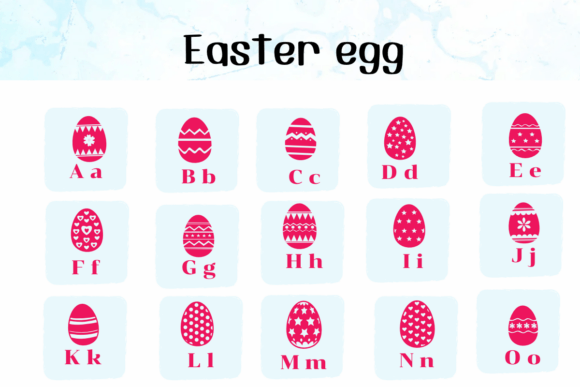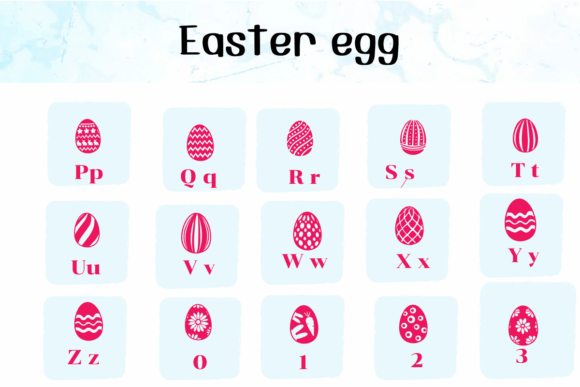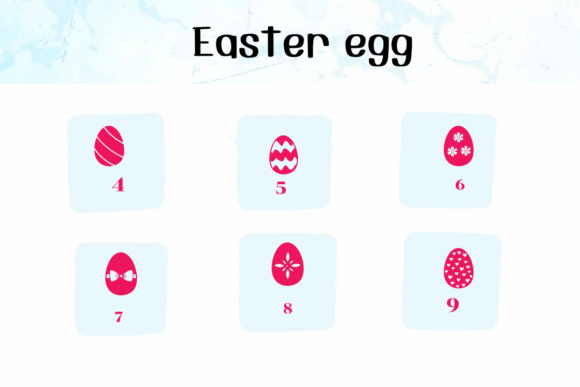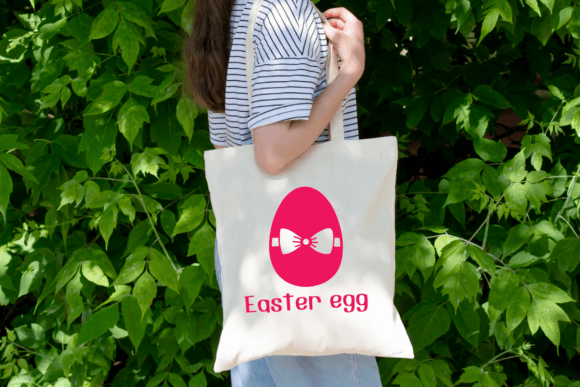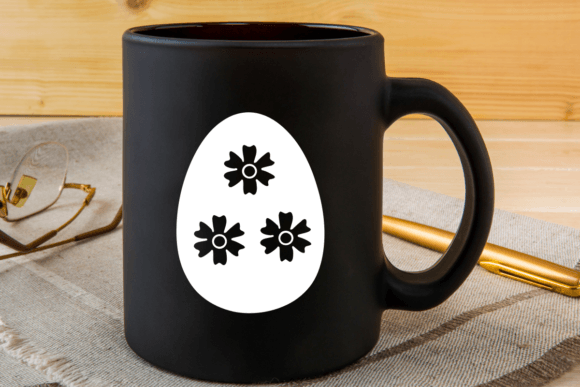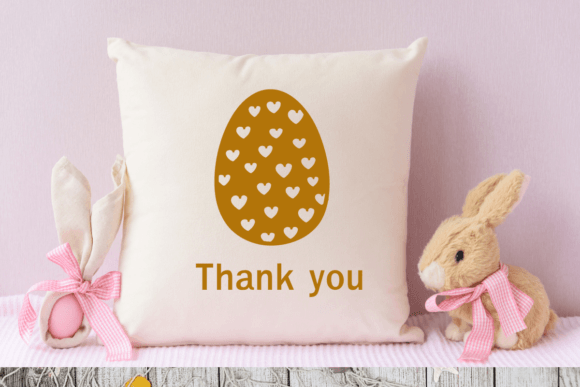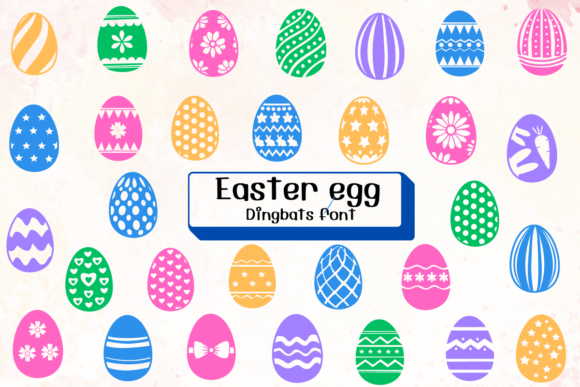
Easter Egg Font: A Fun and Festive Dingbat Font for Easter Crafts
Are you looking for a unique and creative way to add some Easter cheer to your crafts, cards, and decorations? Look no further than the Easter Egg Font, a fun dingbat font that features colorful Easter eggs as its symbols. With this font, each letter or number you type shows a unique, bright, and festive egg design that’s sure to delight.
What is the Easter Egg Font?
The Easter Egg Font is a special type of font known as a dingbat font. Unlike traditional fonts that feature letters and numbers, dingbat fonts feature symbols and graphics. In the case of the Easter Egg Font, each symbol is a colorful and fun Easter egg design. This font is perfect for anyone looking to add a touch of Easter whimsy to their crafts, cards, and decorations.
Here are a few ideas for using the Easter Egg Font:
- Create custom Easter cards and invitations featuring colorful egg designs.
- Add a festive touch to your Easter crafts, such as egg-themed decorations or gift tags.
- Use the Easter Egg Font to create fun and playful Easter-themed social media graphics and posts.
- Design custom Easter-themed gifts, such as mugs, t-shirts, or tote bags.
Features of the Easter Egg Font
The Easter Egg Font has several features that make it a great choice for Easter crafts and decorations:
- Unique and colorful designs: Each letter or number in the Easter Egg Font features a unique and colorful Easter egg design.
- Easy to use: Simply type out any letter or number, and it will be replaced with an Easter egg design.
- Scalable: The Easter Egg Font can be scaled up or down to fit any design or project.
- Compatible with most design software: The Easter Egg Font can be used in most design programs and software that support dingbat fonts.
Tips and Tricks for Using the Easter Egg Font
Here are a few tips and tricks for getting the most out of the Easter Egg Font:
- Experiment with different colors and backgrounds: Try pairing the Easter egg designs with different colors and backgrounds to create unique and eye-catching effects.
- Mix and match designs: Combine different Easter egg designs to create fun and playful patterns and textures.
- Use the Easter Egg Font with other fonts: Pair the Easter Egg Font with other fonts to create interesting and dynamic text effects.
The Easter Egg Font is a fun and festive dingbat font that’s perfect for adding a touch of Easter cheer to your crafts, cards, and decorations. With its unique and colorful designs, ease of use, and scalability, this font is a great choice for designers and crafters of all skill levels. So why not give it a try and see what creative and festive designs you can come up with?
Whether you’re a professional designer or a crafter looking for a fun and creative way to celebrate Easter, the Easter Egg Font is a great choice. So go ahead, get creative, and have fun with this festive and fun font!